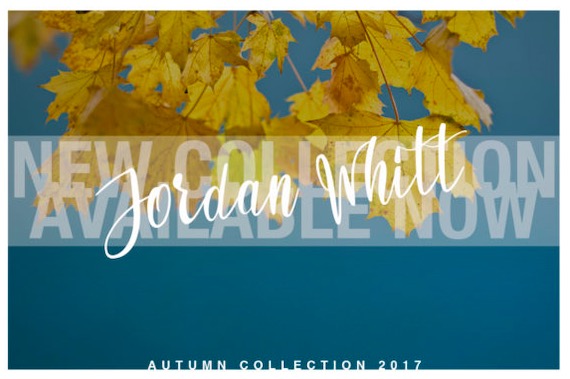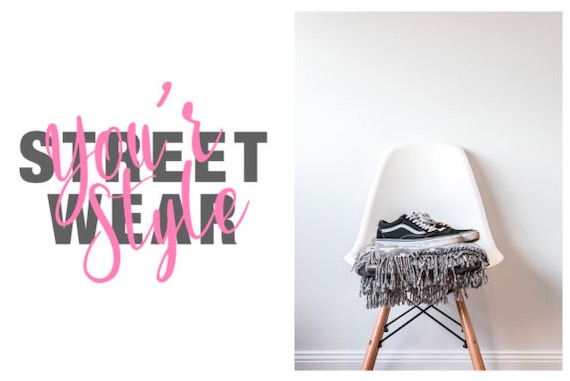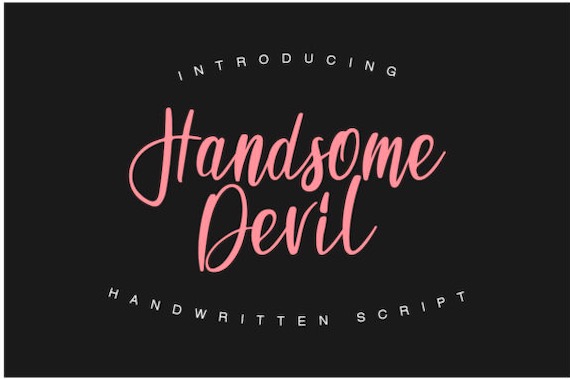
Introducing Handsome Devil Font. This is a modern and fresh new handmade script font along with a touch of contemporary calligraphy. It was created and shared by Besttypeco from an inspiration of its flowing curves.
Handsome Devil Handwritten Font